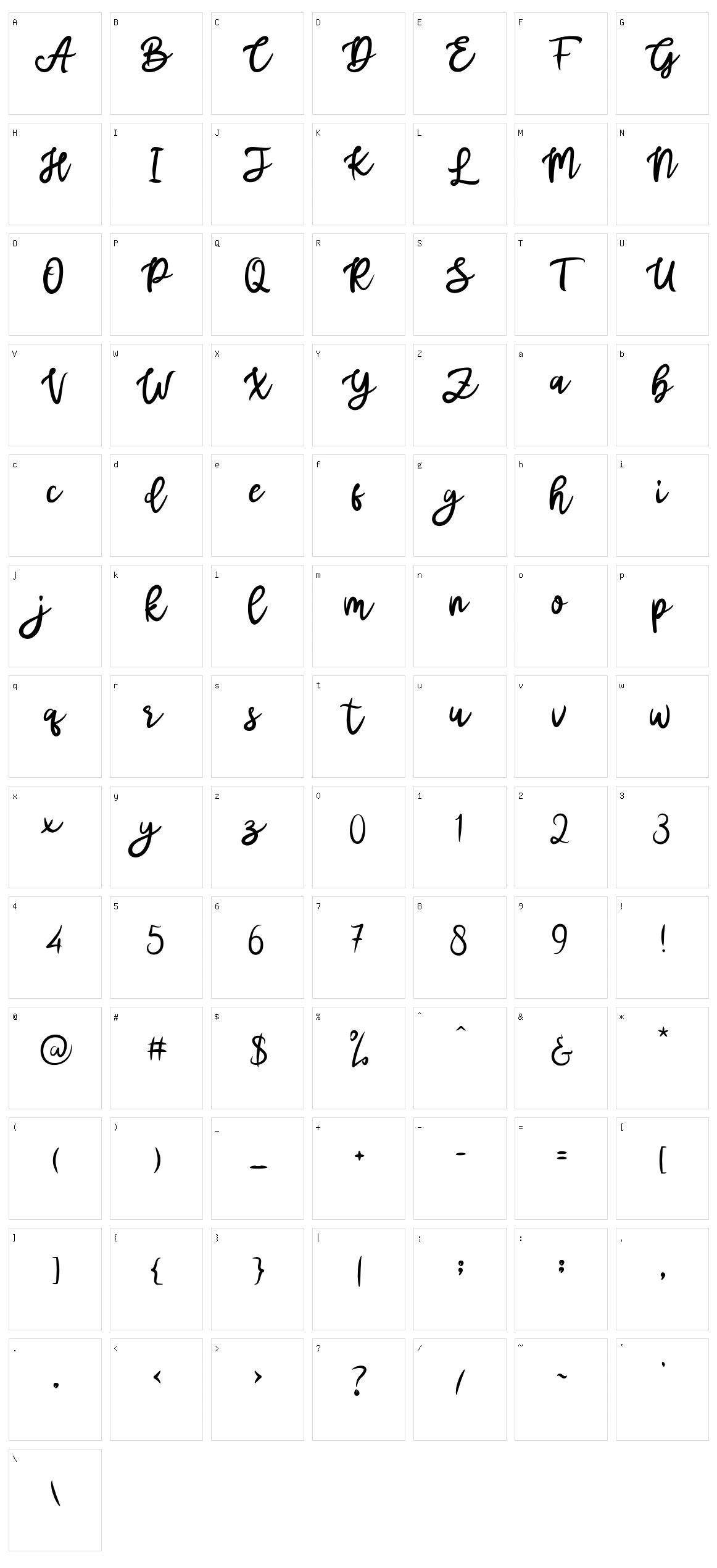
The free font Mottas is carefully designed by WDfont, showcasing a thoughtful balance of creativity and usability and falls under the Script font style. When you download the ZIP file, it contains only 202.64 KB of font files, making it lightweight and quick to download. Please review the license details below to understand permitted usage and distribution rights. If license information is not available, we recommend using this font for personal projects only or contacting the author directly for commercial usage permissions.